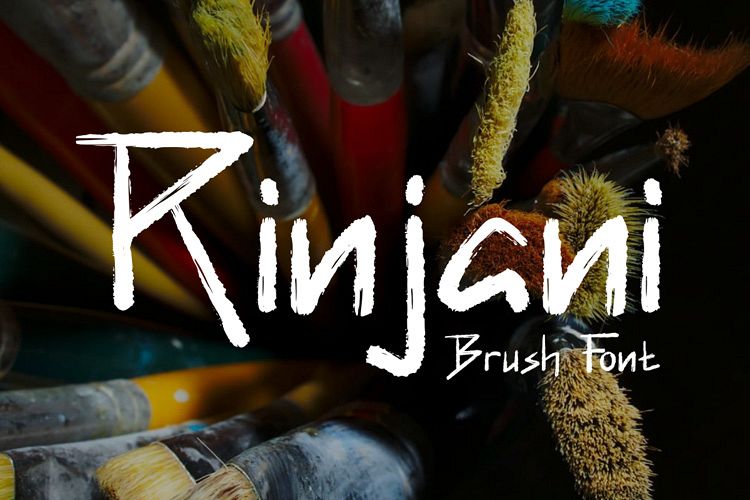
Rinjani
The use of thick brushes and expressive strokes makes Rinjani typeface that is raw and thick. Suitable for titles and short paragraphs.
Rinjani